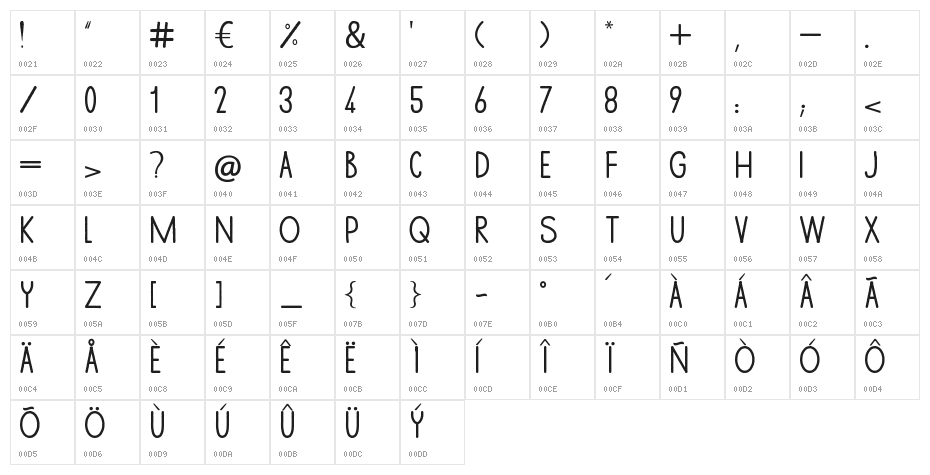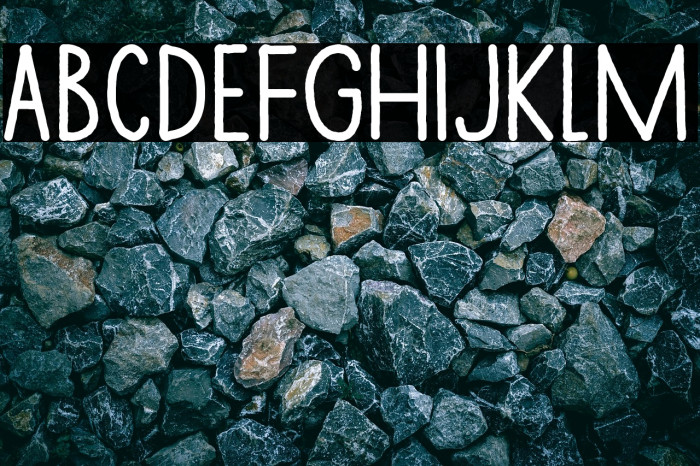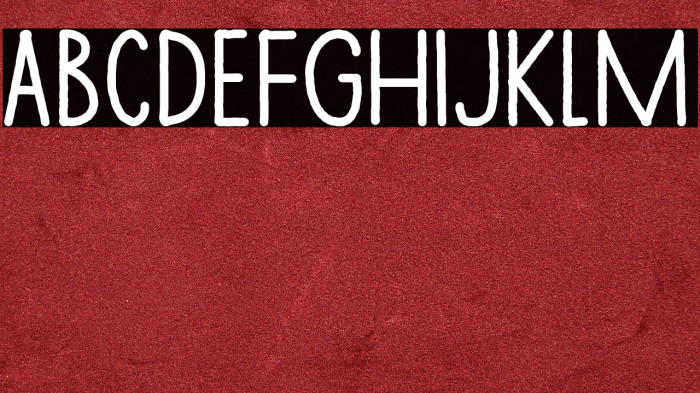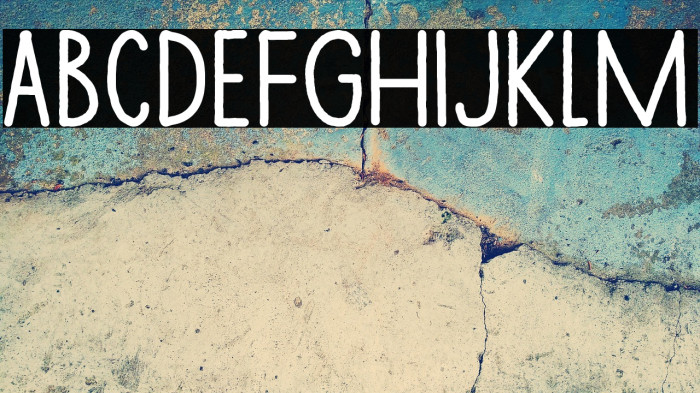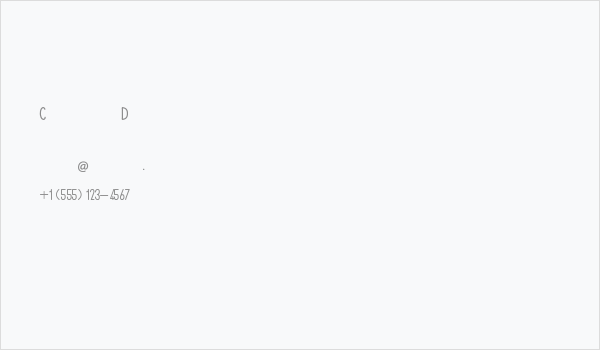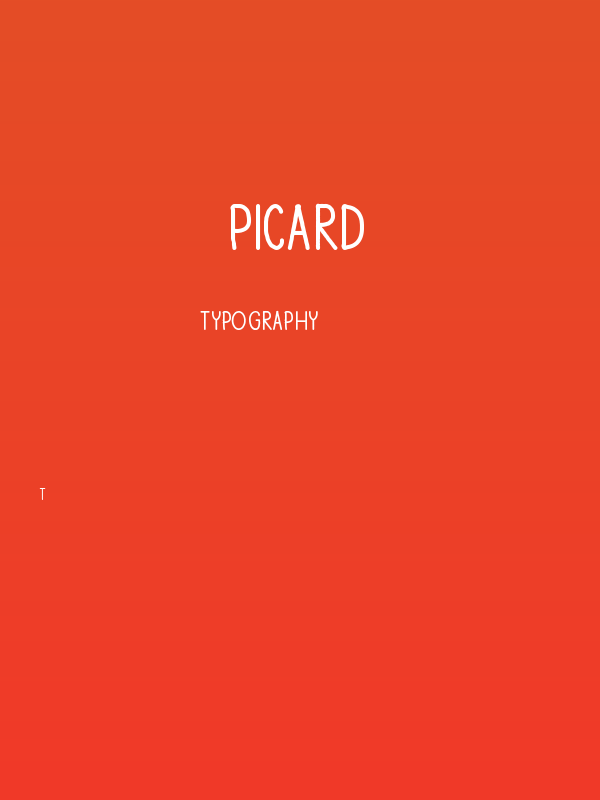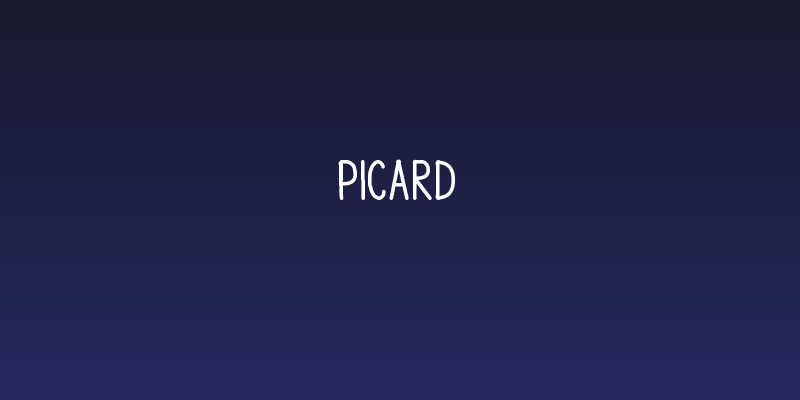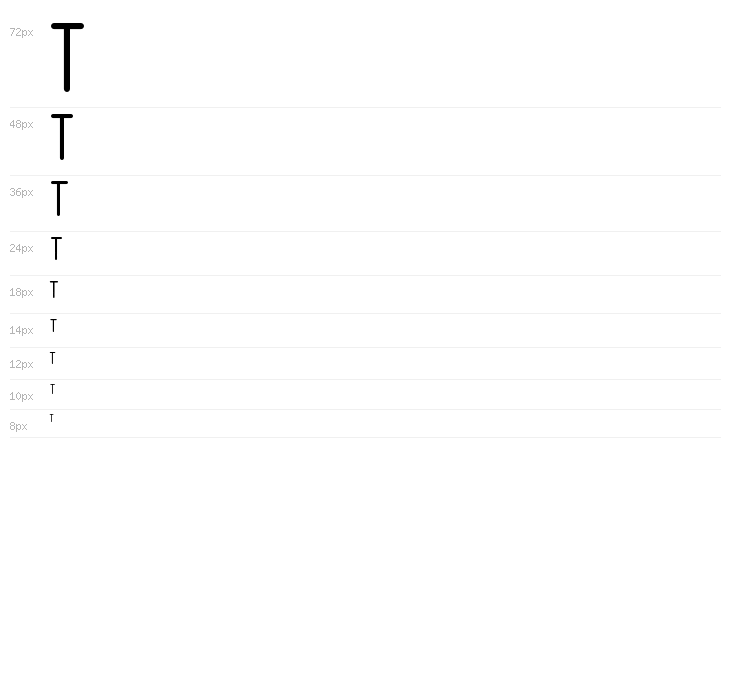
picard Font
picard Description
A playful, handwritten-style font with rounded edges and a casual appearance.
| Proposed Projects | Greeting cards, informal invitations, children's books. |